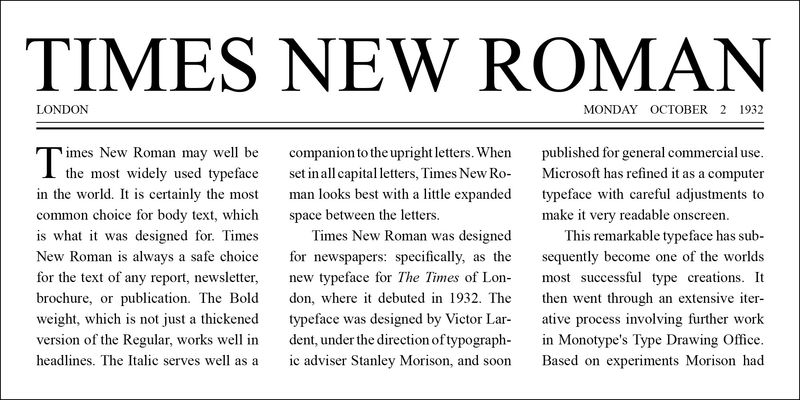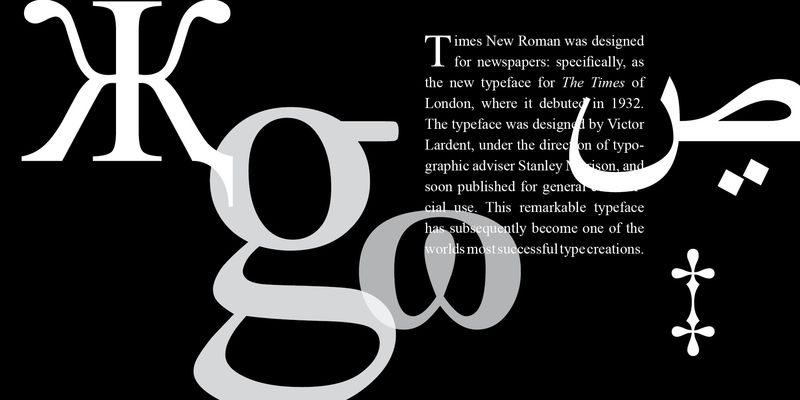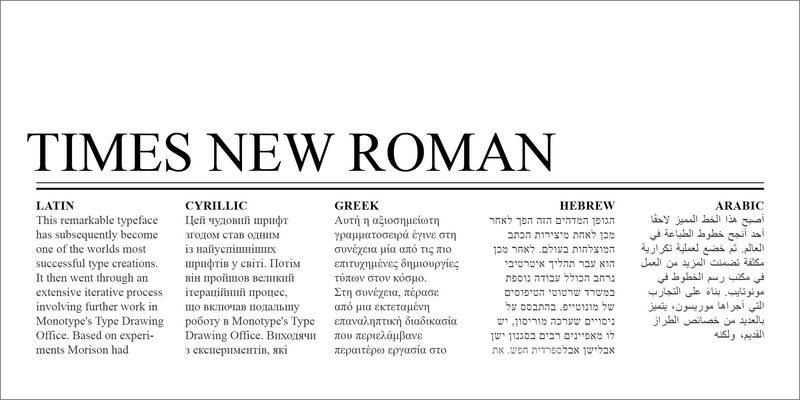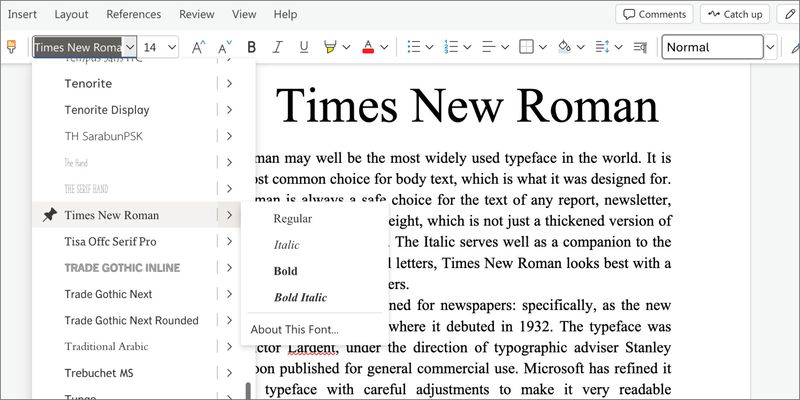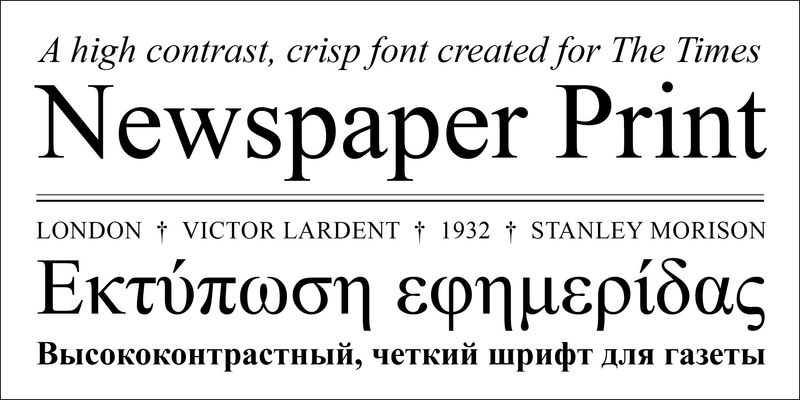
Times New Roman may well be the most widely used typeface in the world. It is certainly the most common choice for body text, which is what it was designed for. Times New Roman is always a safe choice for the text of any report, newsletter, brochure, or publication. The Bold weight, which is not just a thickened version of the Regular, works well in headlines. The Italic serves well as a companion to the upright letters. When set in all capital letters, Times New Roman looks best with a little expanded space between the letters.
Times New Roman was designed for newspapers: specifically, as the new typeface for the Times of London, where it debuted in 1932. The typeface was designed by Victor Lardent, under the direction of typographic adviser Stanley Morison, and soon published for general commercial use. Microsoft has refined it as a computer typeface with careful adjustments to make it very readable onscreen.